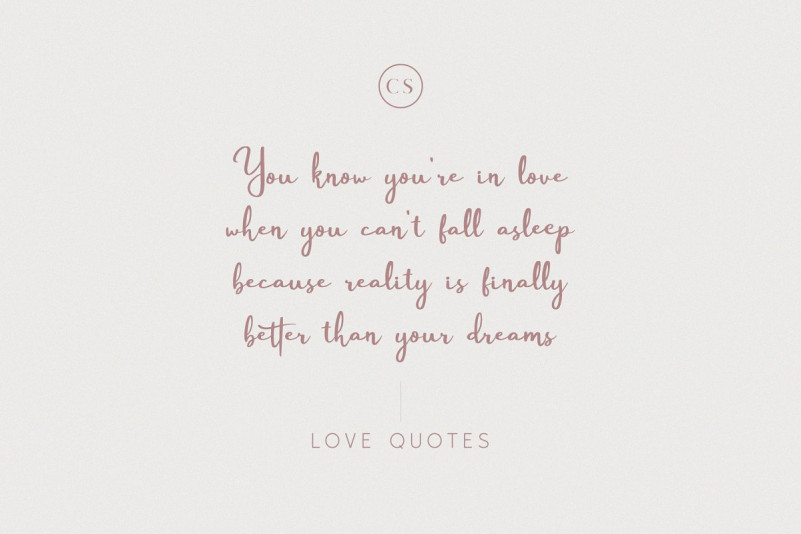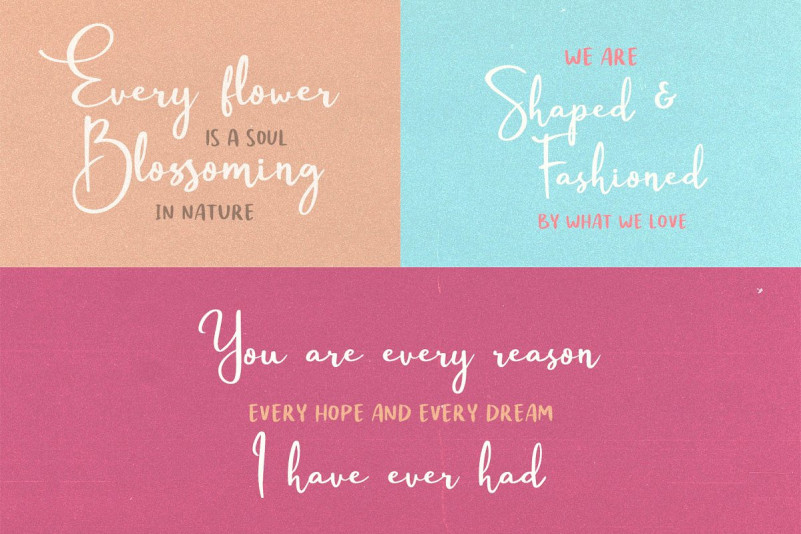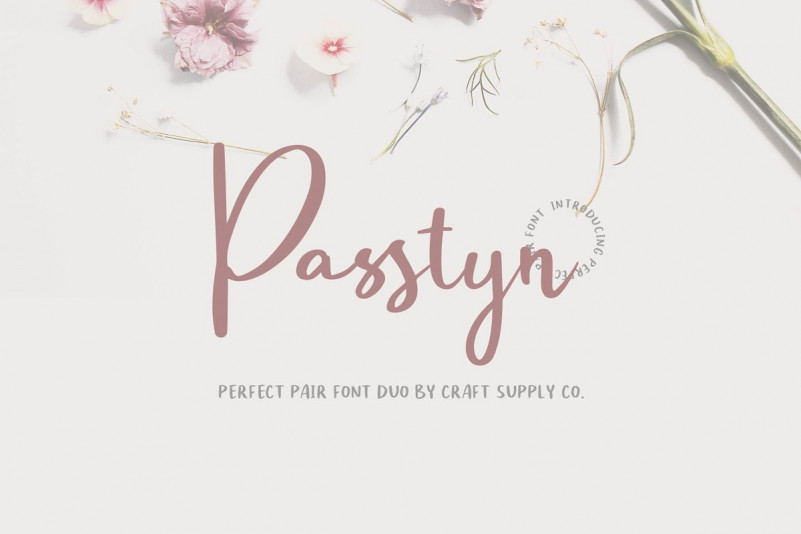
Passtyn Script – Demo Font
Passtyn Font is a handwritten font duo. This collection of scripts is perfect for personal branding.this works well for many applications. Passtyn Script is an handwritten script font based on the expression of real handwriting. Larissa – A Lovely Script Font will work perfectly for fashion, e-commerce brands, trend blogs, wedding boutiques or any business that wants to appear upscale and chic.